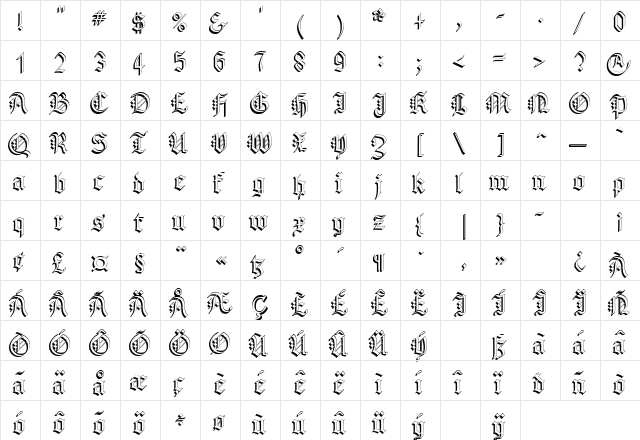
AlbertBetenbuchExtrude Regular
Design Context for AlbertBetenbuchExtrude Typeface
AlbertBetenbuchExtrude is a composed and adaptable typeface that performs quietly and consistently across a wide range of design contexts.